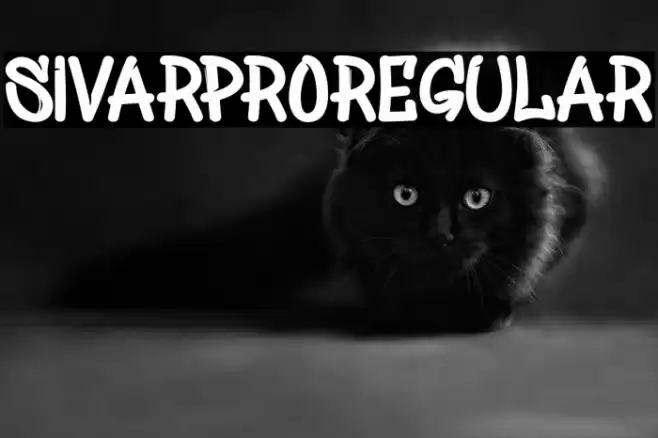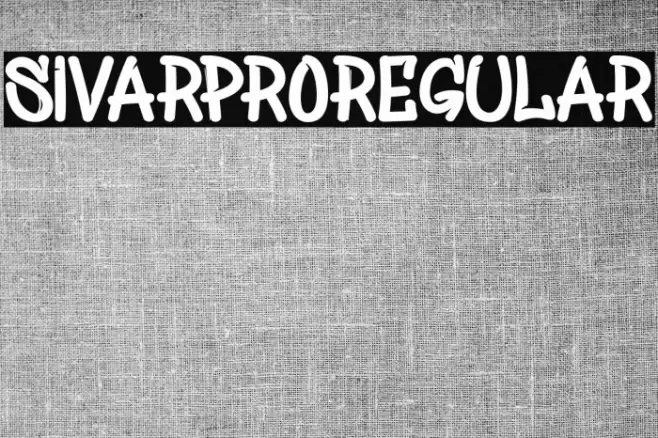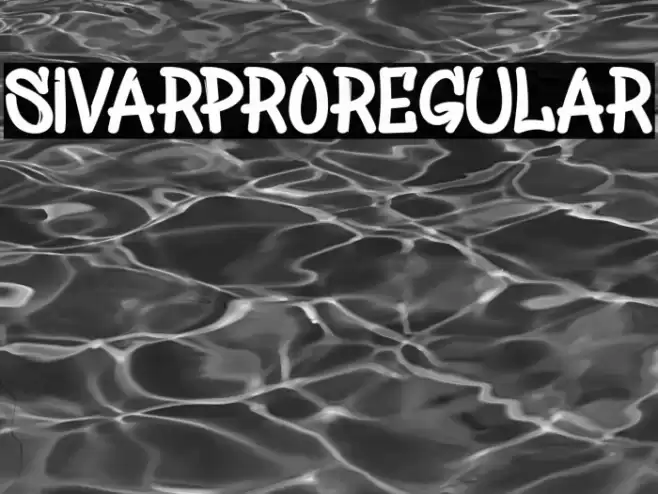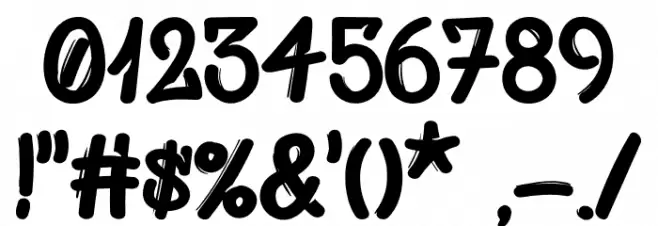
SivarProRegular Font
SivarProRegular Description
This font features a bold and playful style with a handwritten appearance. The characters are thick and rounded, giving them a friendly and approachable look. The uppercase and lowercase letters maintain a consistent weight, while the numerals and special characters are designed to match the overall aesthetic. The font's strokes are smooth, with a slight variation in thickness that adds to its casual and informal feel. It's well-suited for projects that require a fun and lively touch, such as children's books, posters, or party invitations.
A bold, playful, handwritten-style font with rounded characters from Regular fonts.
- Proposed Projects: Ideal for children's books, posters, party invitations, and playful branding.
- Overall Style: Playful